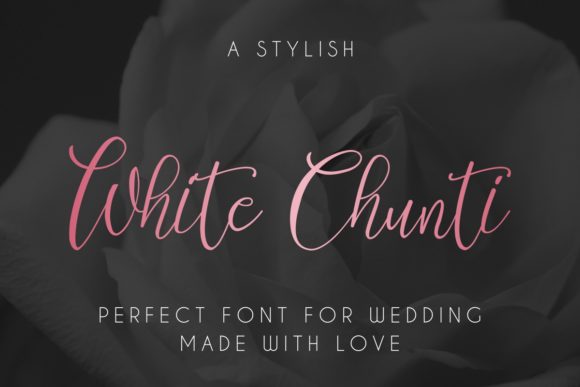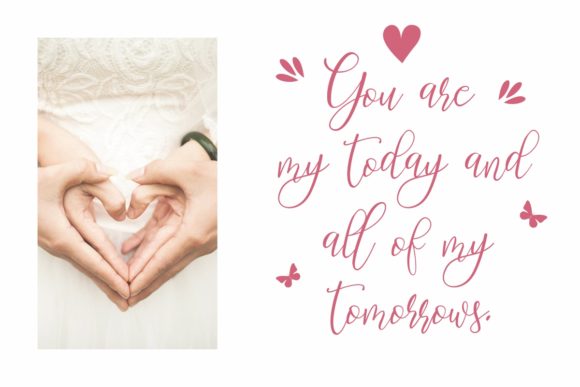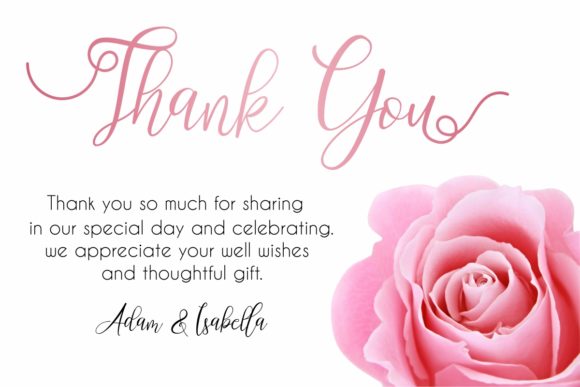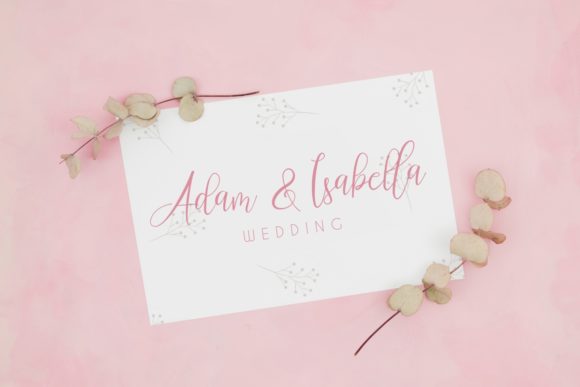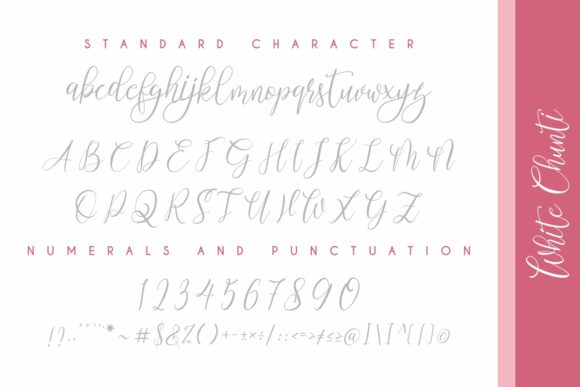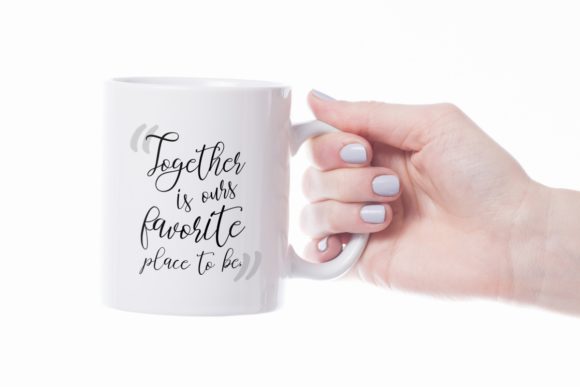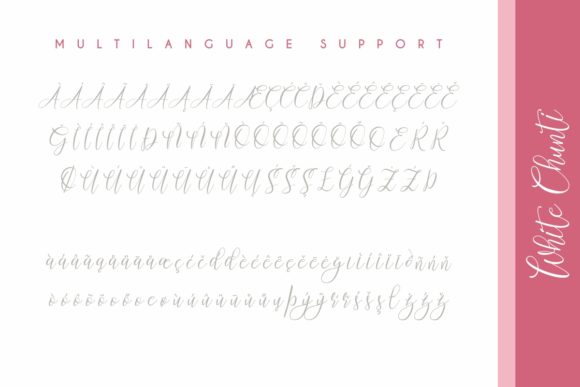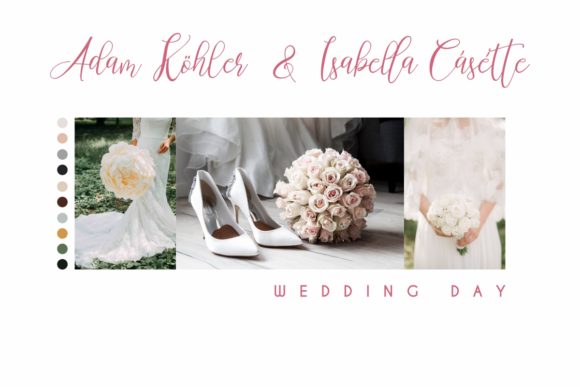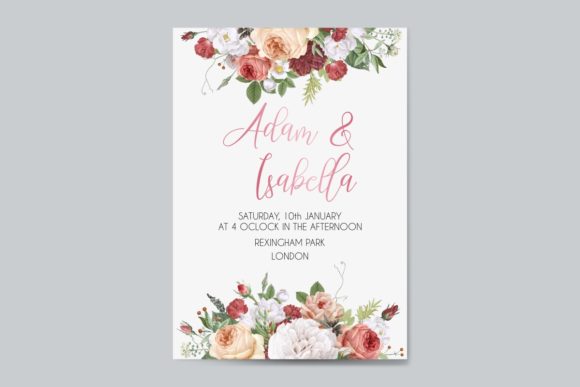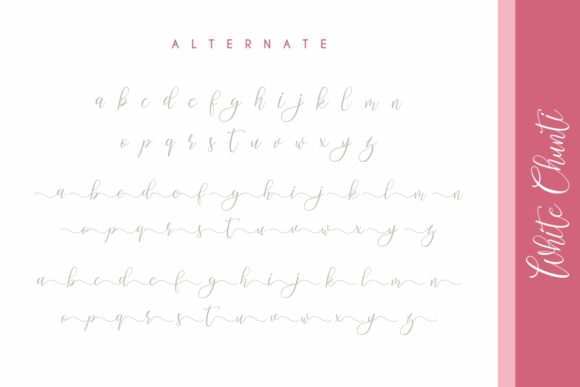
White Chunti Font
About White Chunti Font
White Chunti is a stylish, handwritten script font perfect for creating chic wedding stationery or for any project that needs a romantic, elegant feel.